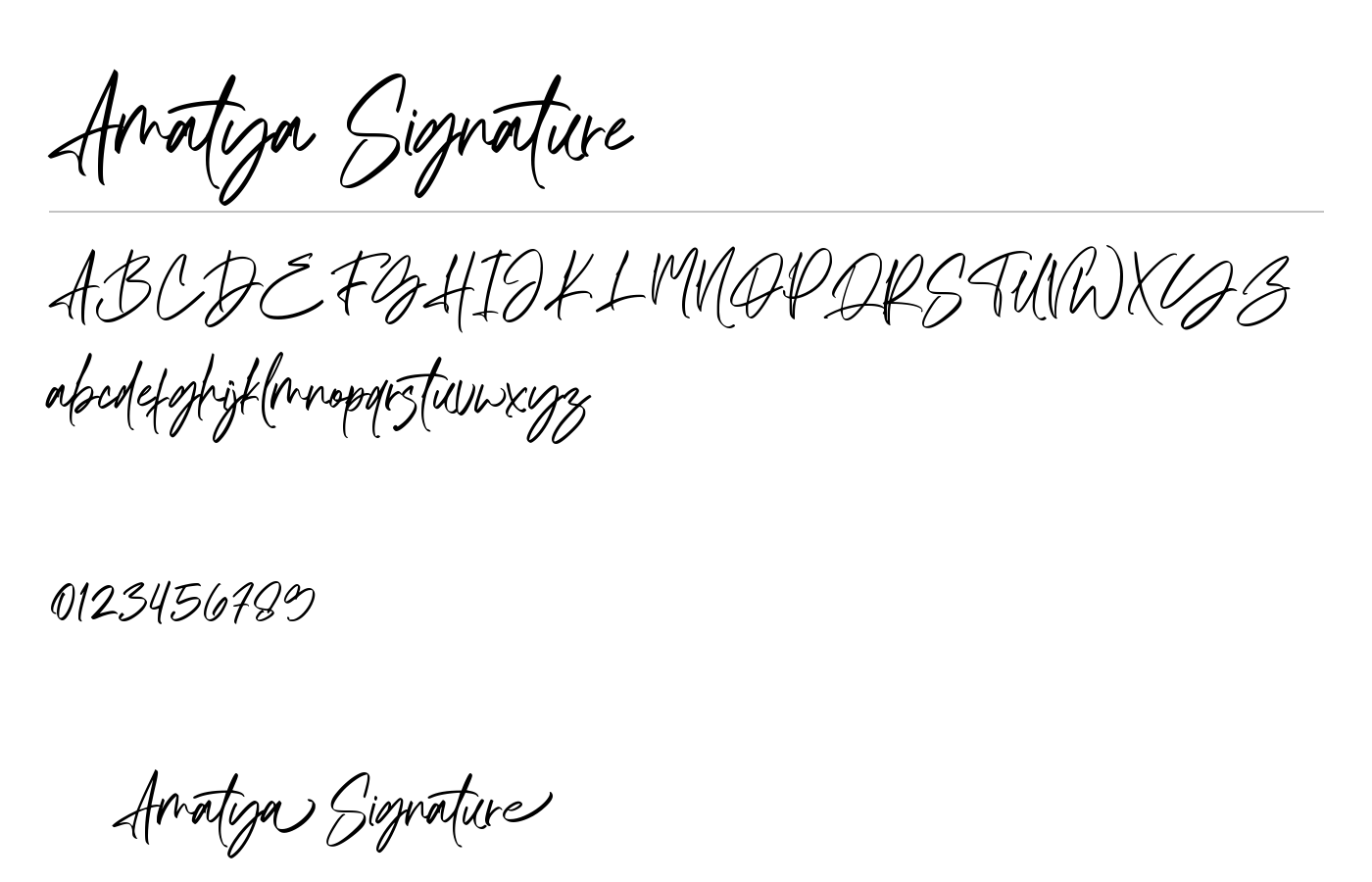
Amatya Signature is a stylish handwritten script font that captures the fluidity and elegance of natural handwriting with its slender, slightly textured strokes and tall, airy letterforms. Its casual yet sophisticated personality makes it perfect for fashion branding, logos, invitations, and editorial design where a personal, modern touch is desired. This font works especially well in headlines or display use, adding a refined and approachable feel to creative projects.
Amatya Signature Font
About Amatya Signature Font
| Font family | Amatya Signature Font |
| Designer | AMINMARIO |